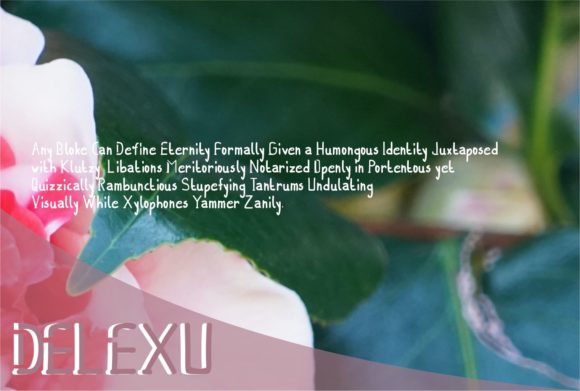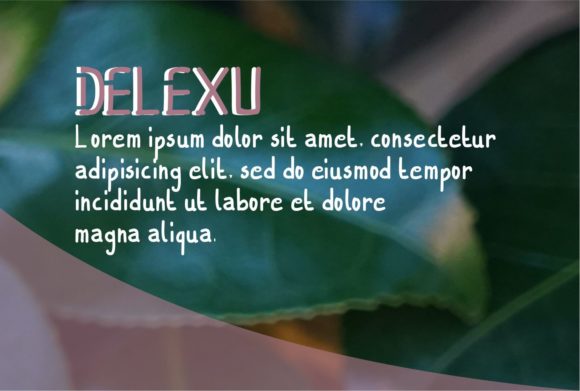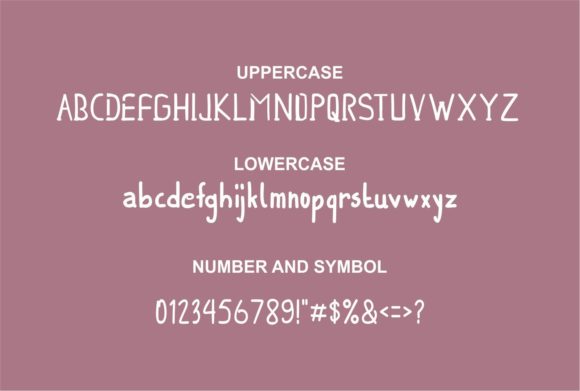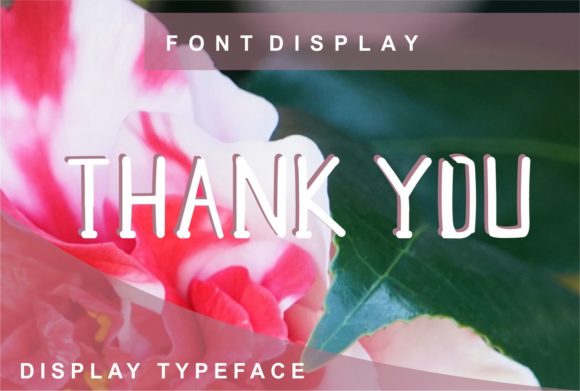
Introduction to Delexu Font
Delexu is a clean and adaptable display font.
Key Features of Delexu Font
Why Choose Delexu Font?
Delexu Font offers exceptional quality and versatility, making it a valuable addition to your design toolkit. Whether you’re creating for personal projects or commercial use, Delexu Font delivers professional results.